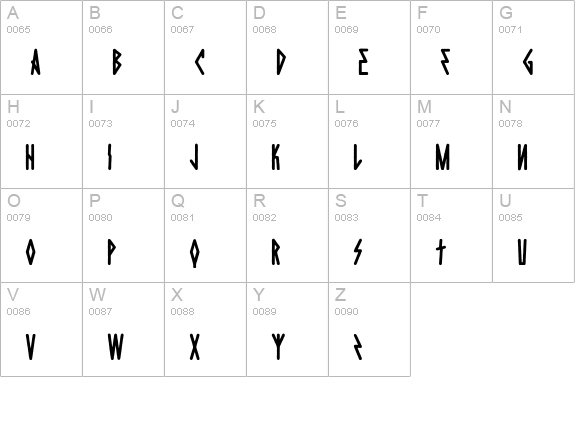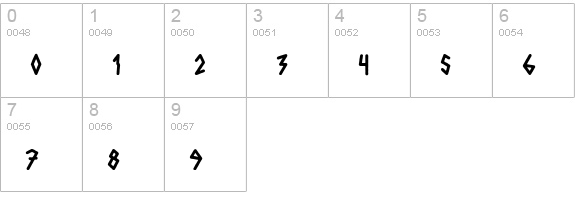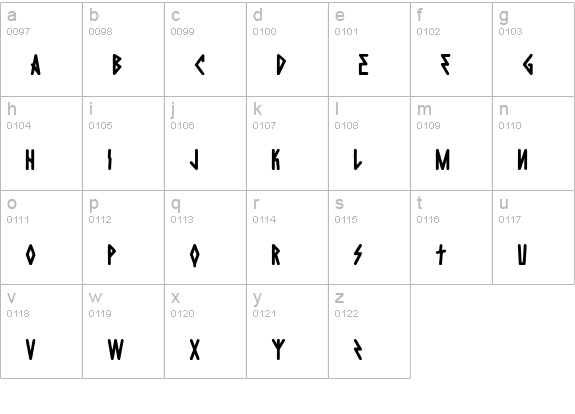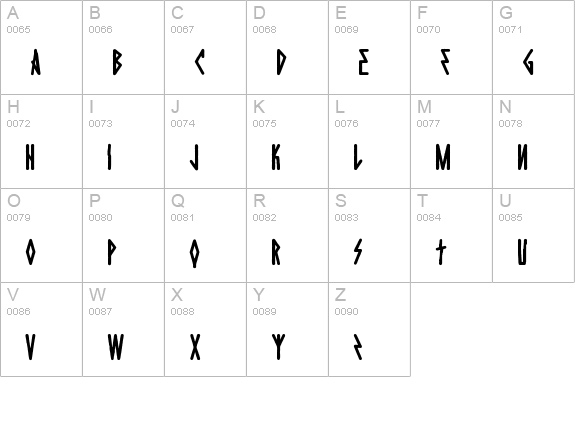
Introducing the captivating and bold Die Hard Typeface font, a versatile typeface that exudes strength and modernity. Perfect for making a statement in any design project, this font is sure to grab attention and leave a lasting impression. With its sharp angles and sleek lines, Die Hard Typeface adds a touch of edginess to any text or headline.